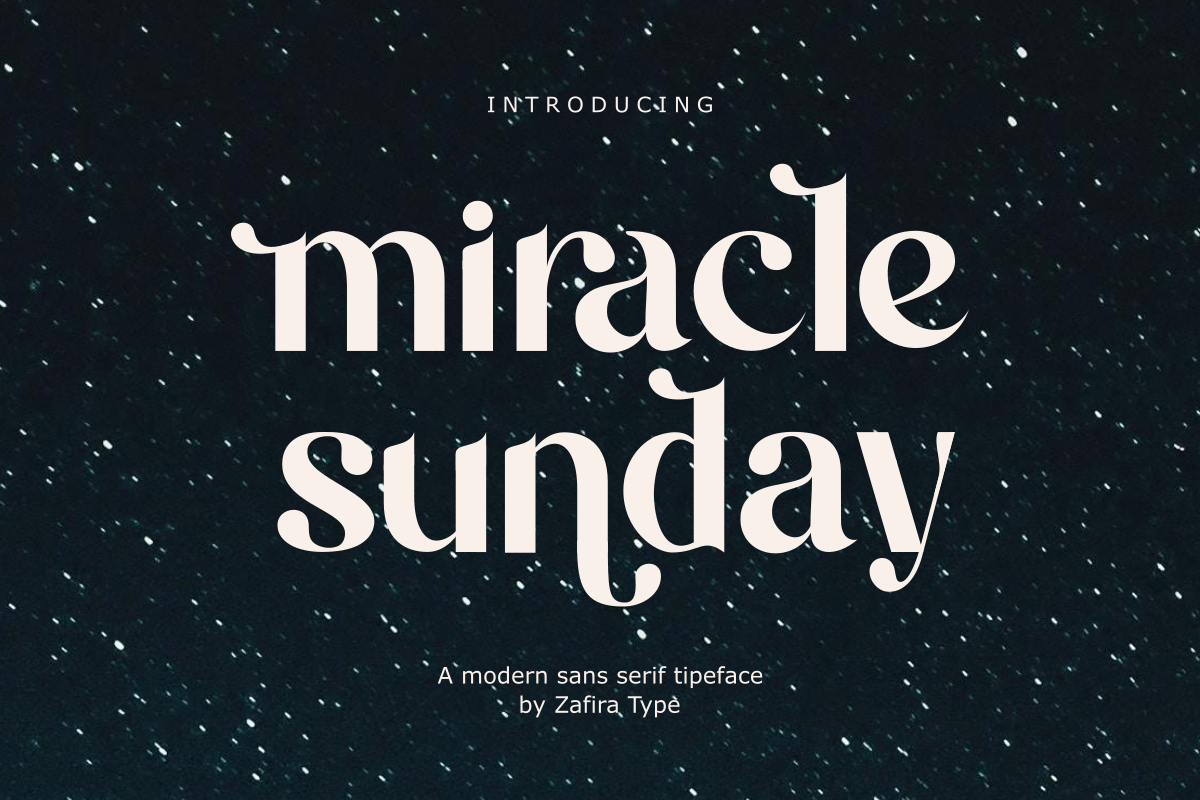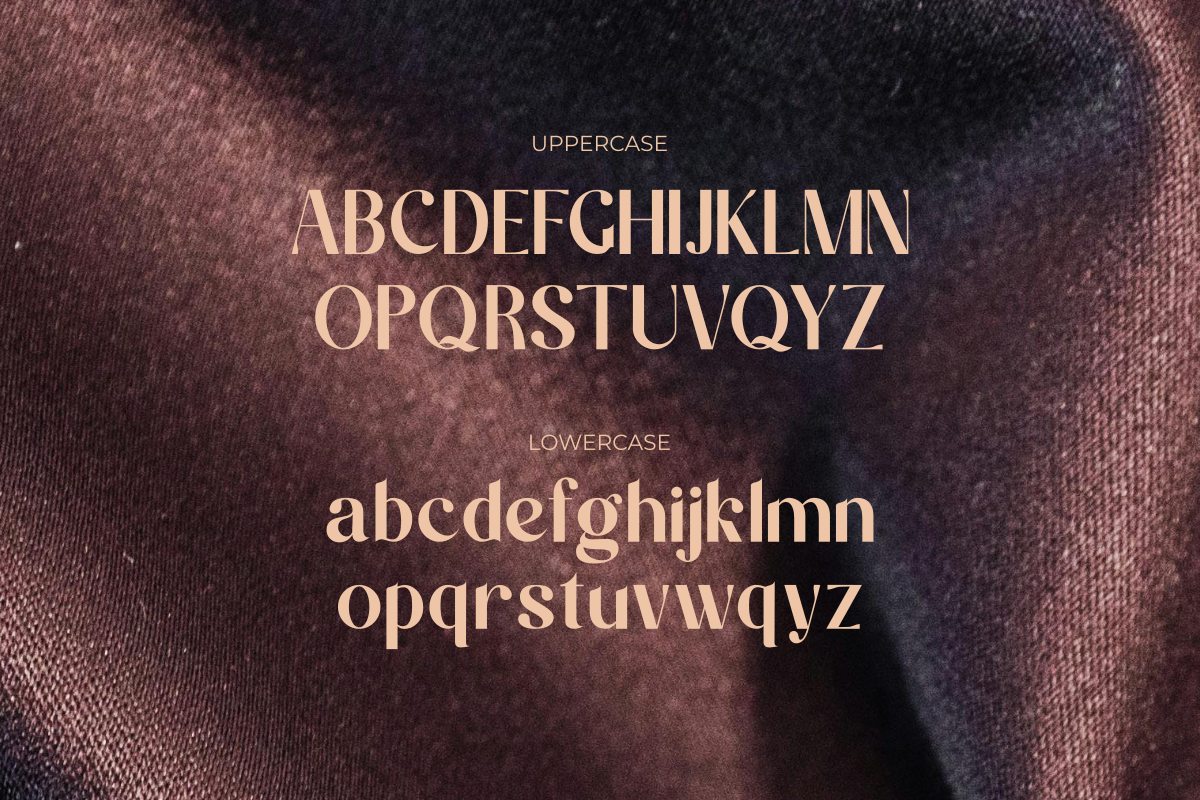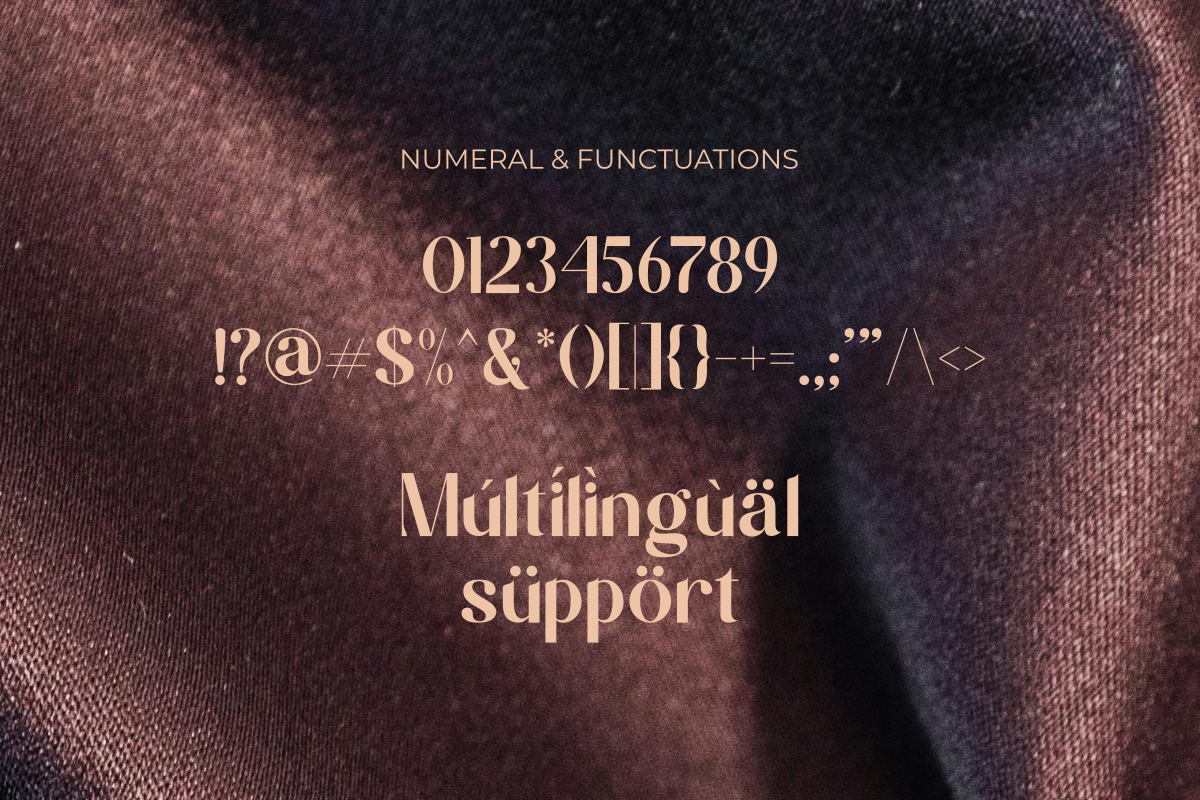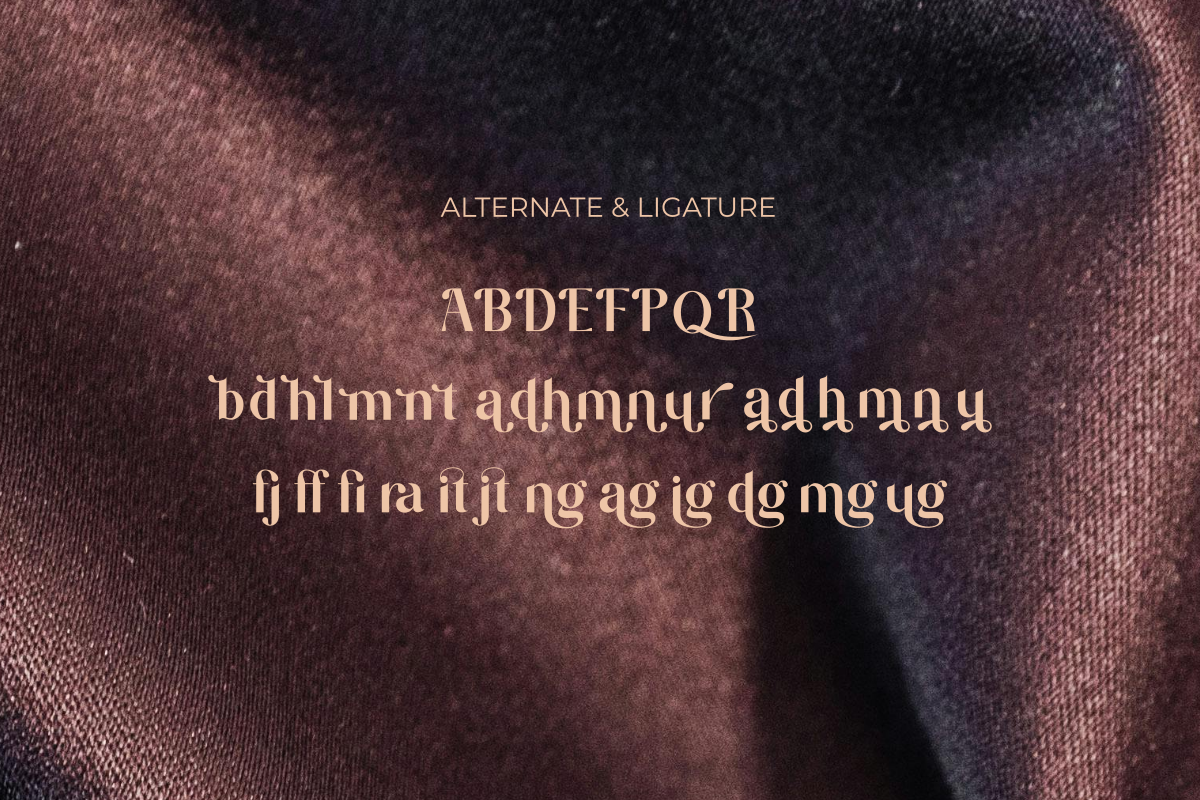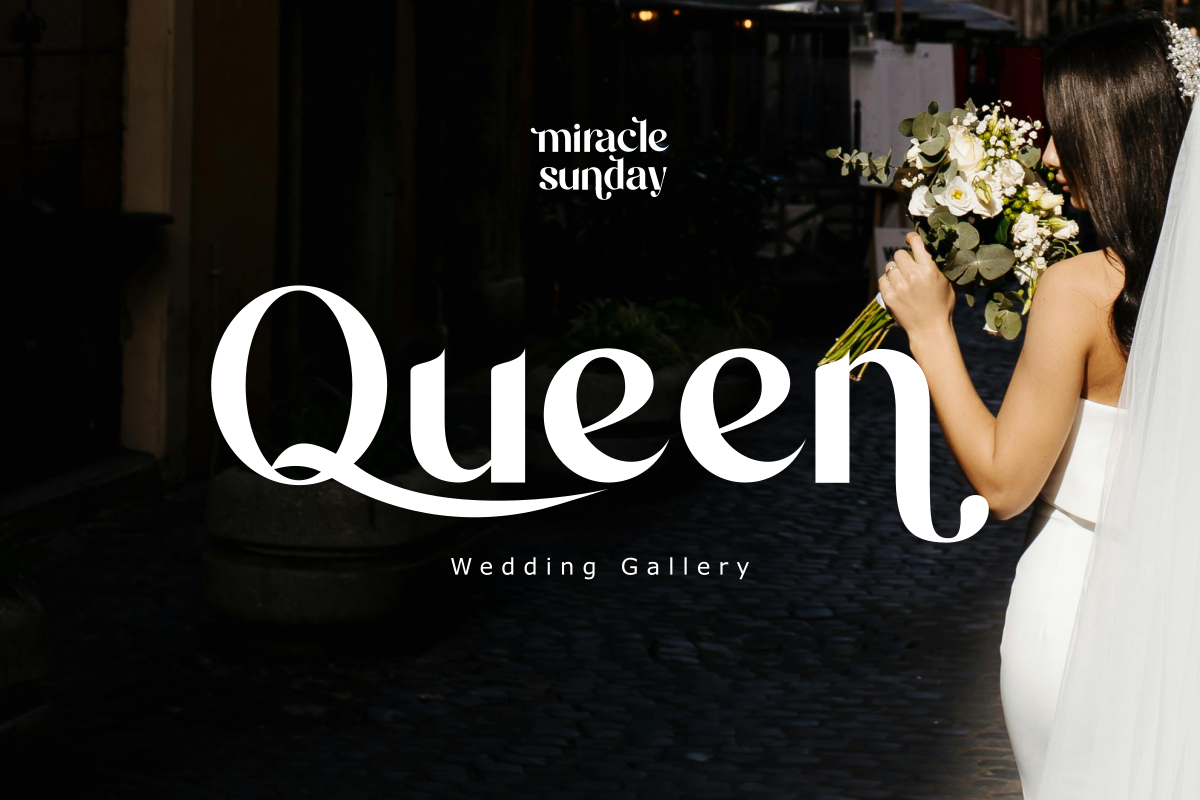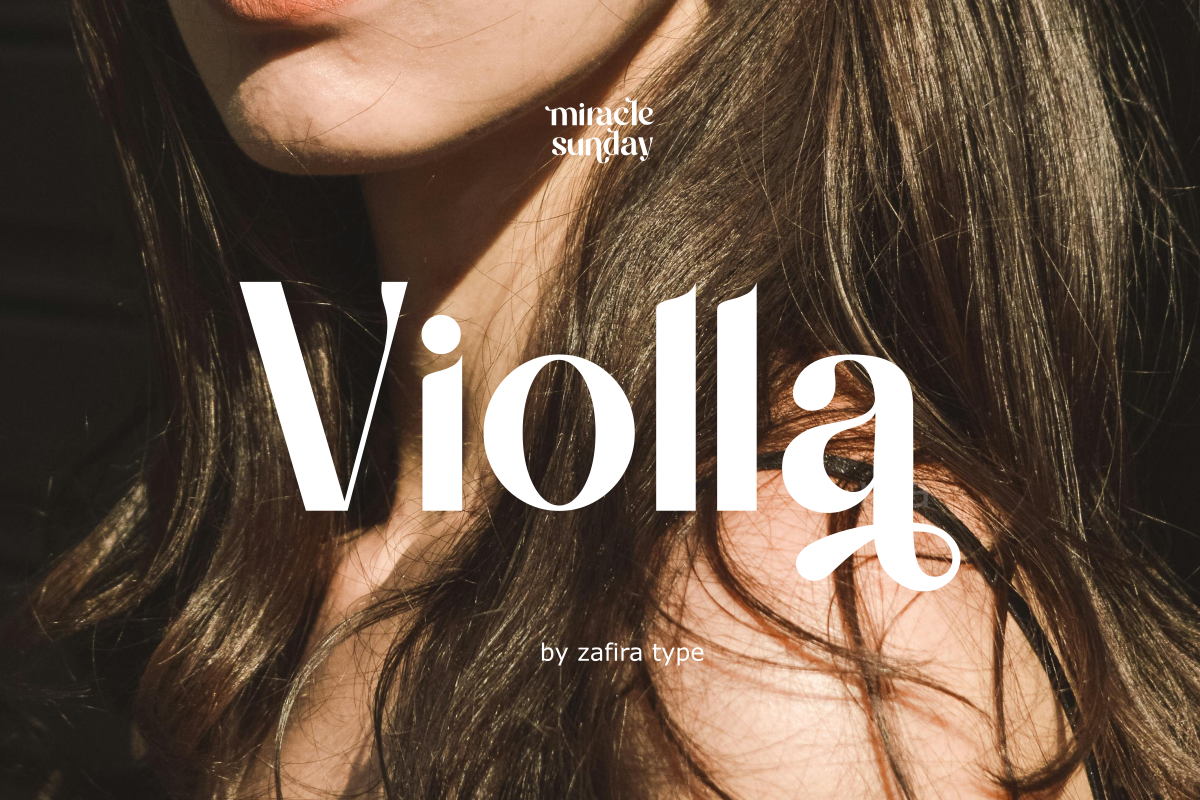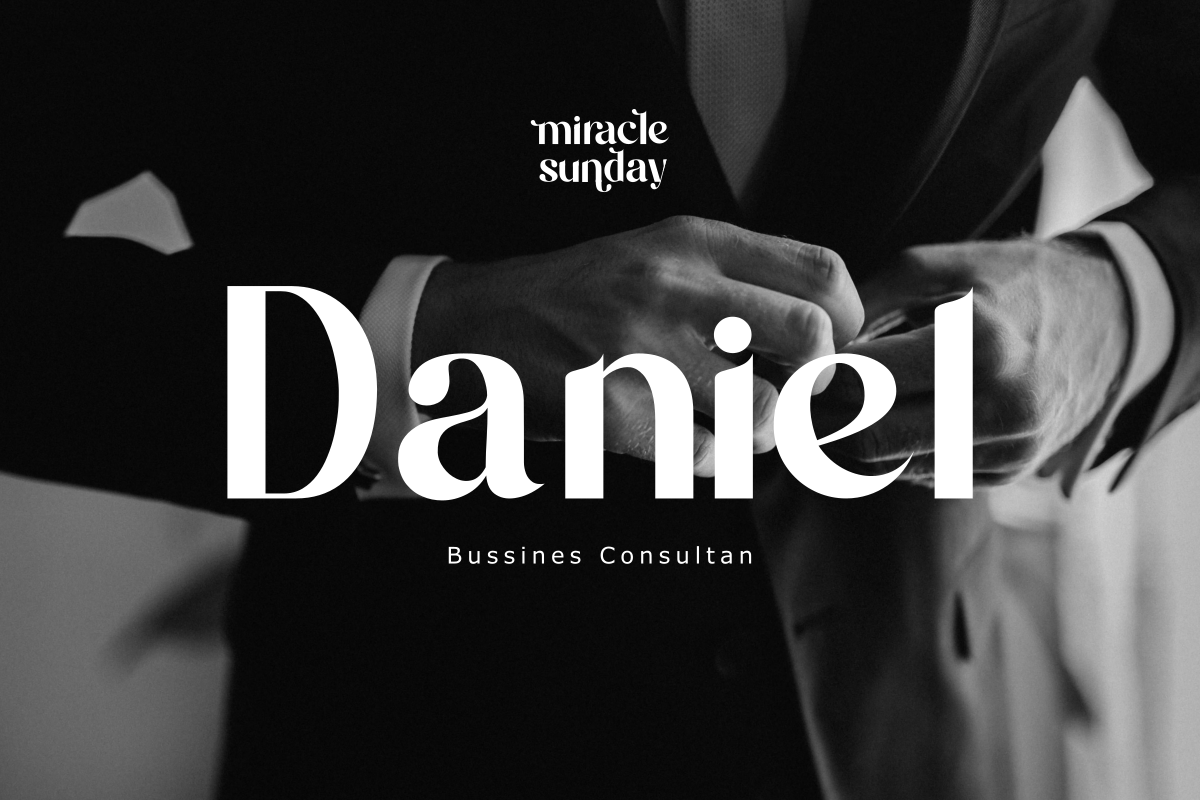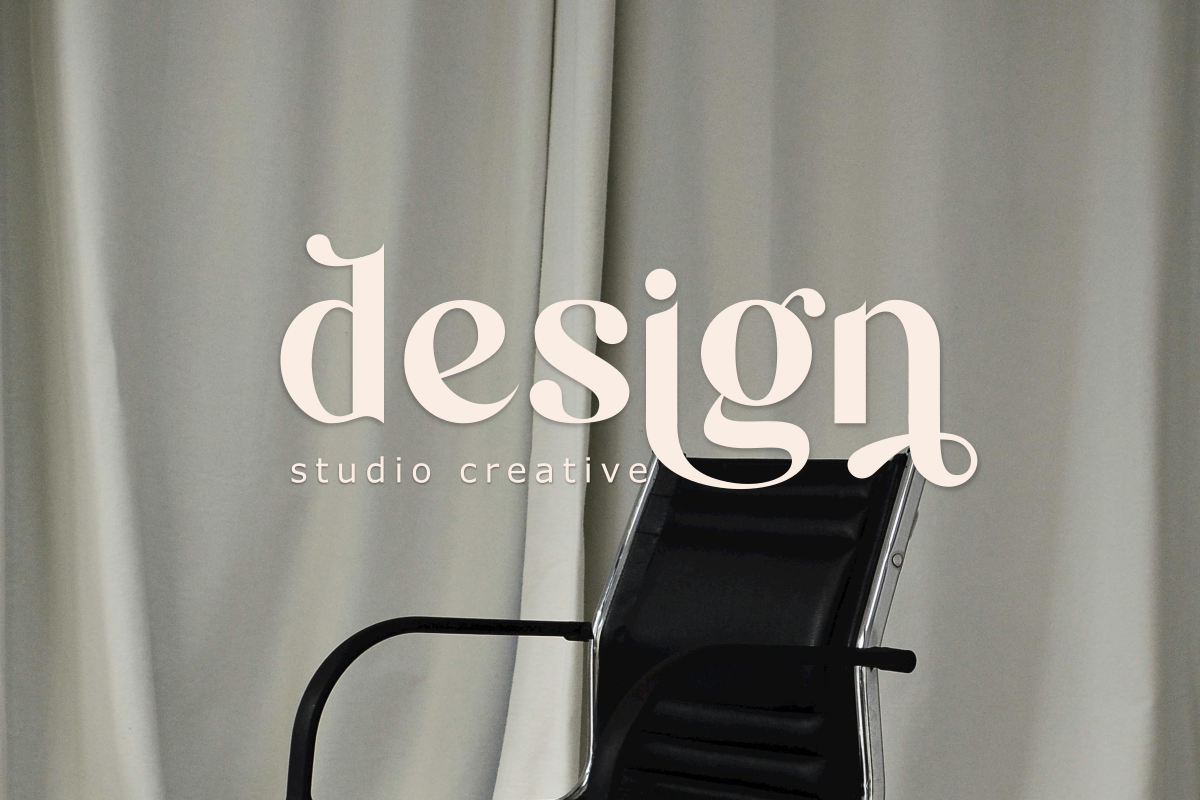
Miracle Sunday
Miracle Sunday is a modern and elegant sans-serif font. Miracle Sunday is well-suited for advertising, branding, logotypes, packaging, titles, headlines, and editorial designs.